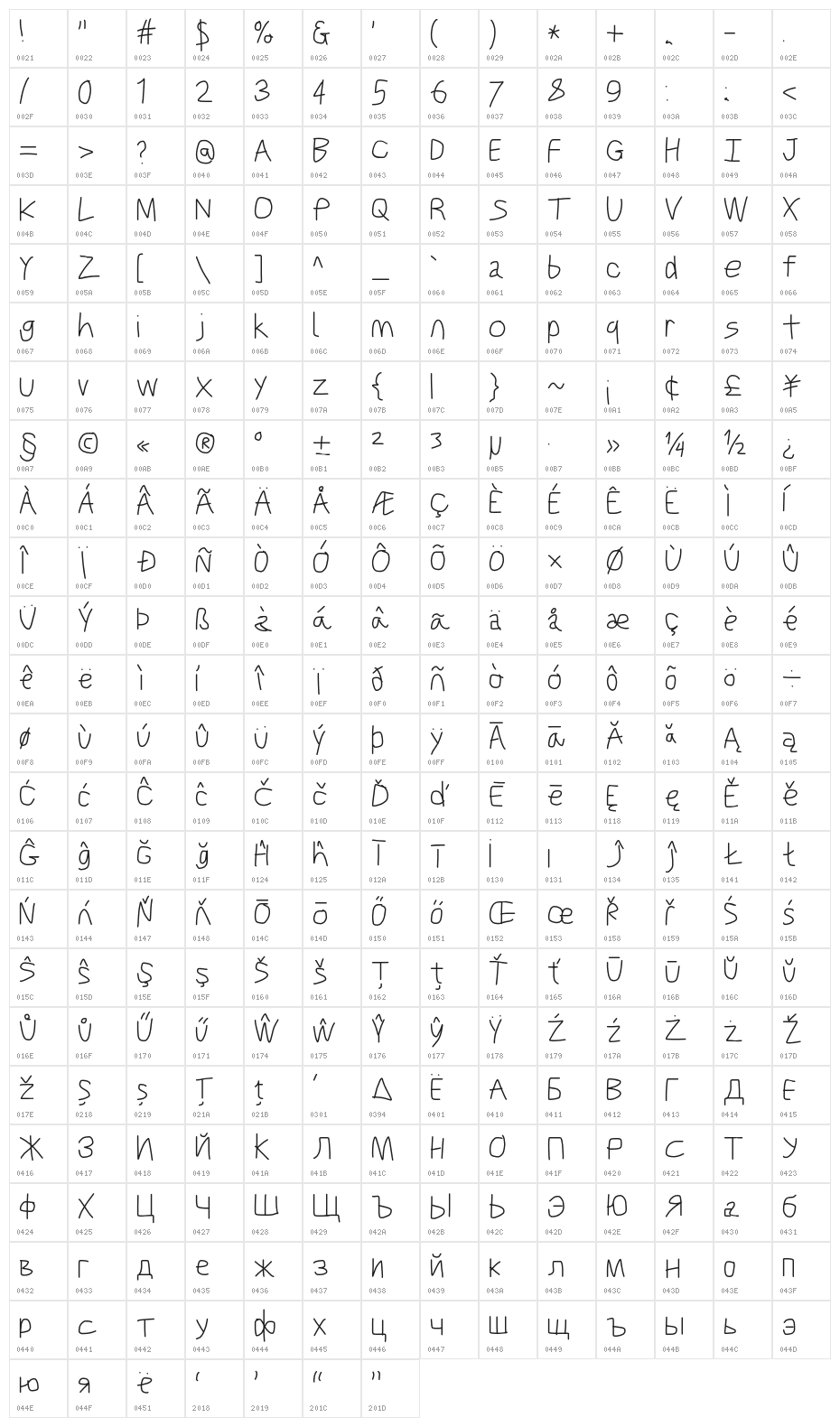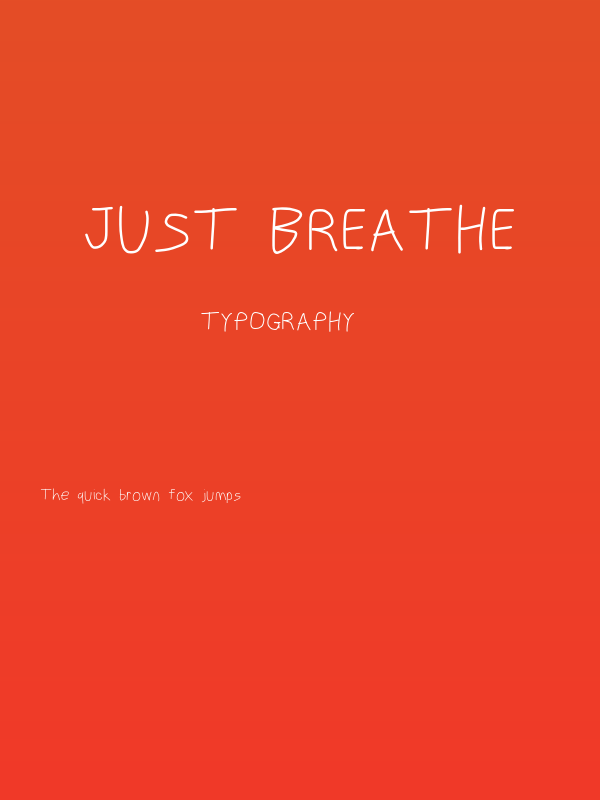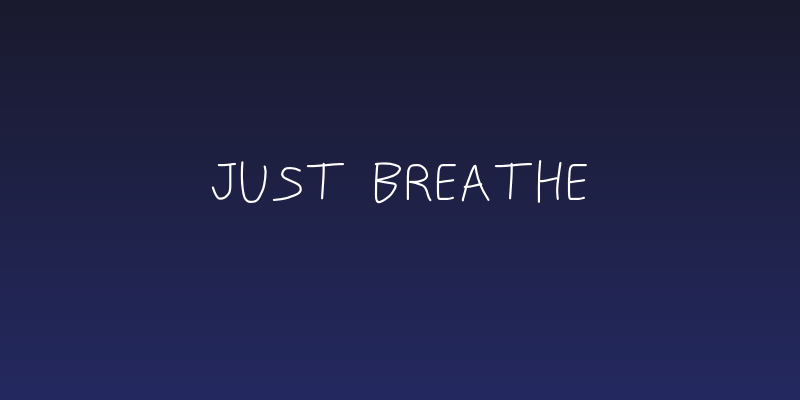
Just Breathe Font
Just Breathe Description
This font exudes a casual and friendly handwritten style, characterized by its playful and informal appearance. The letters are slightly irregular, giving it an authentic, hand-drawn feel. The strokes are consistent in width, providing a uniform look across all characters. The uppercase and lowercase letters maintain a cohesive style, with rounded edges and a slight tilt that adds to its approachable nature. The numerals and special characters follow the same design principles, ensuring a harmonious overall appearance. This font is perfect for projects that require a personal touch, such as greeting cards, invitations, or any creative work that benefits from a human element.
| Use Case | Creative projects, Personal notes, Invitations |
| Proposed Projects | Ideal for greeting cards, invitations, personal notes, and creative projects requiring a human touch. |